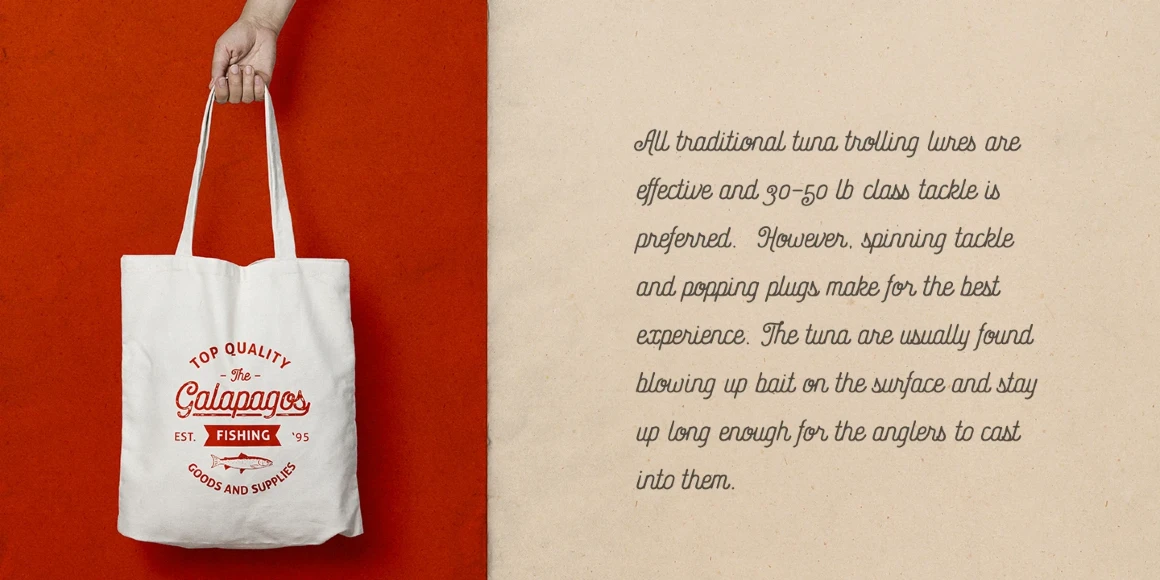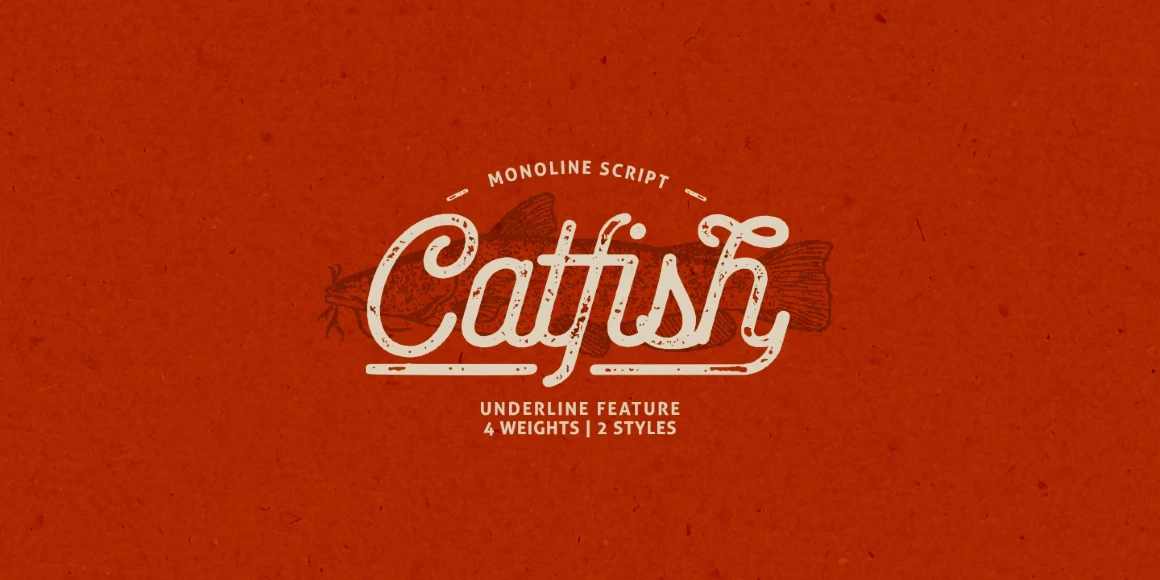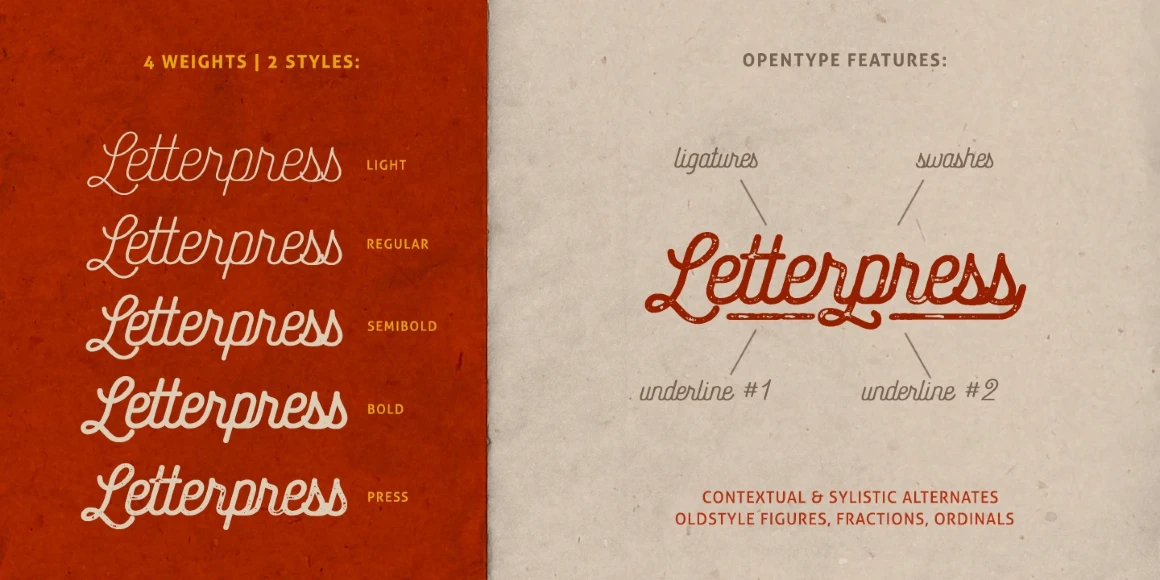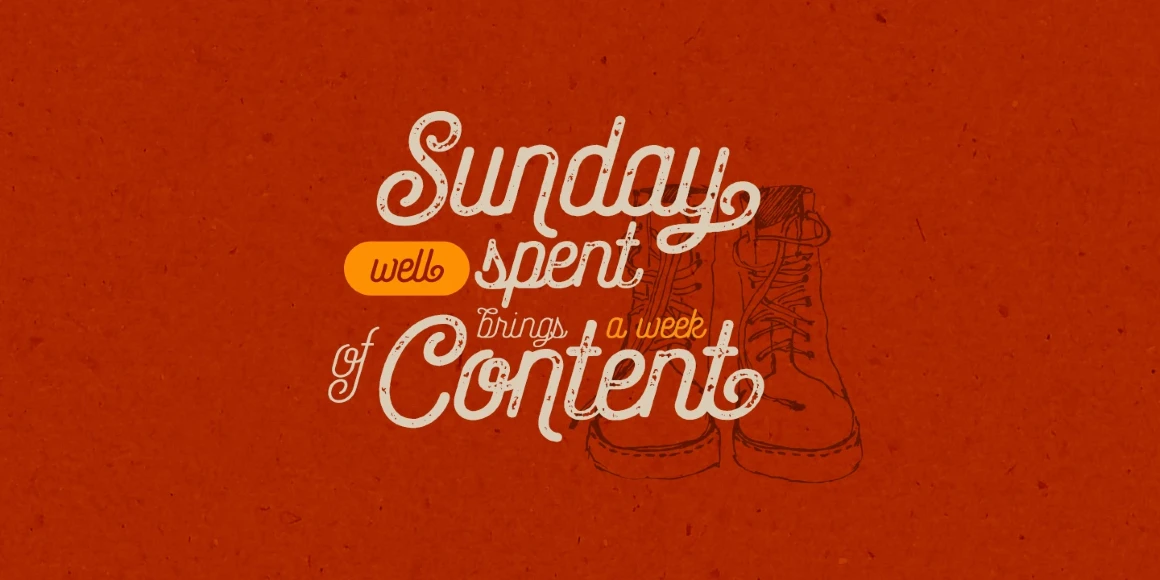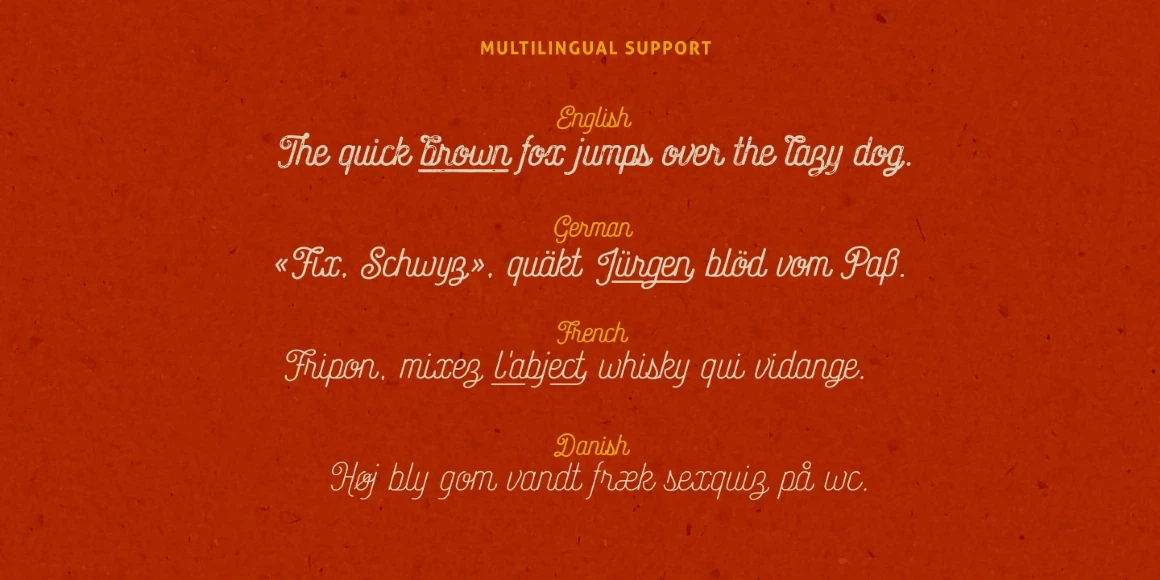
Catfish
Catfish Light
Catfish Regular
Catfish Semi Bold
Catfish Bold
Catfish Bold Rough
Catfish is a monolinear geometric script with a touch of classic vintage. It can be used for various purposes such as logos, badges, t-shirt design, signage, labels, book cover design, and posters. Catfish comes in 5 weights — Light, Regular, Semi Bold, Bold — and a textured version, Catfish Press Regular.